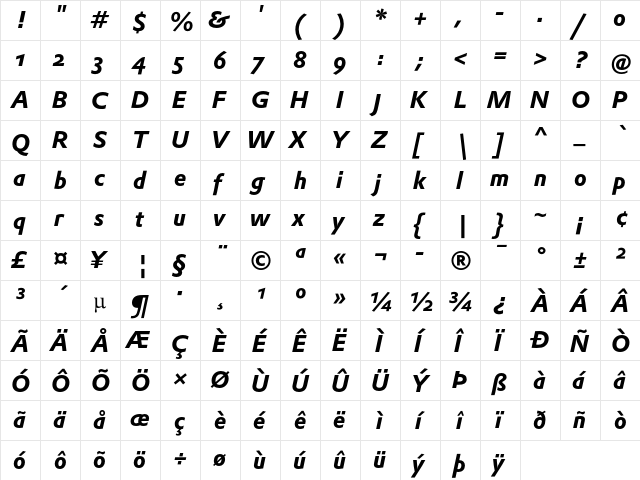
DTLProkyonST Bold Italic
Design Context for DTLProkyonST Typeface
DTLProkyonST is a composed and adaptable typeface that performs quietly and consistently across a wide range of design contexts. The dynamic lean of this cut emphasises speed and emphasis in any layout. Its bold stroke weight gives it real presence on the page.
Pro Tip: Use DTLProkyonST for emphasis, pull quotes, and subheadings where its slanted energy can add rhythm to the layout.